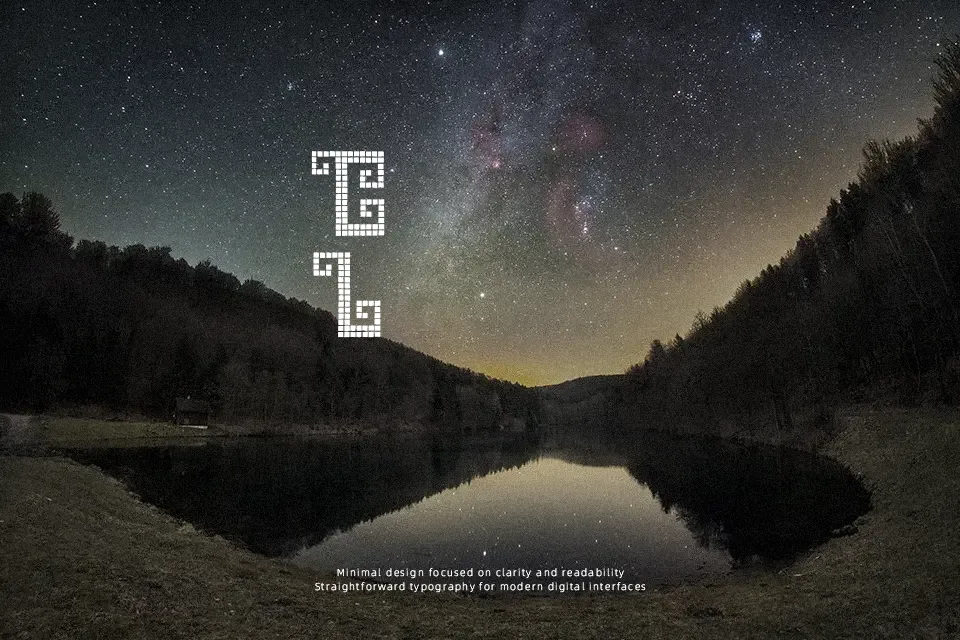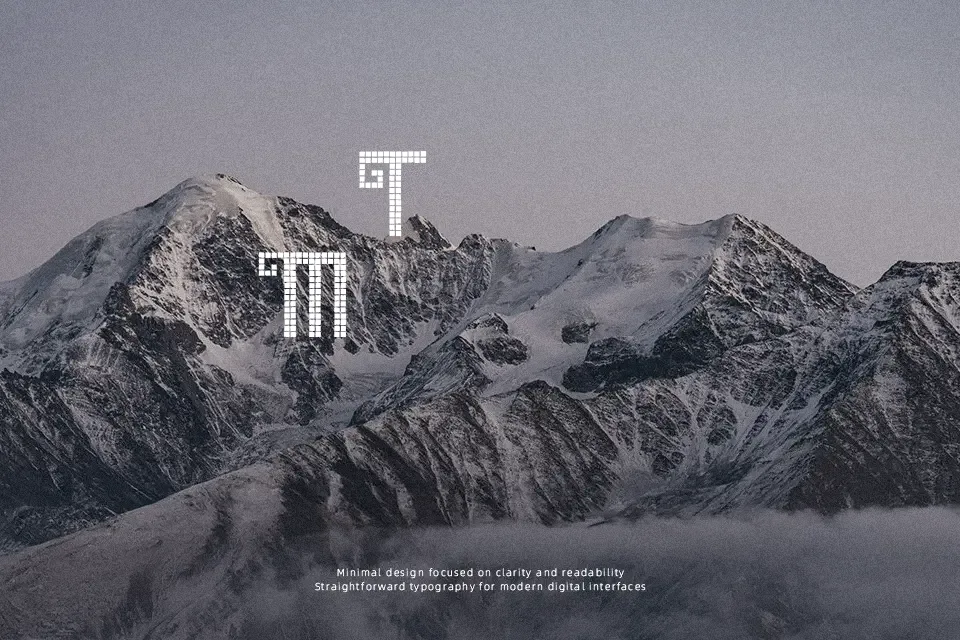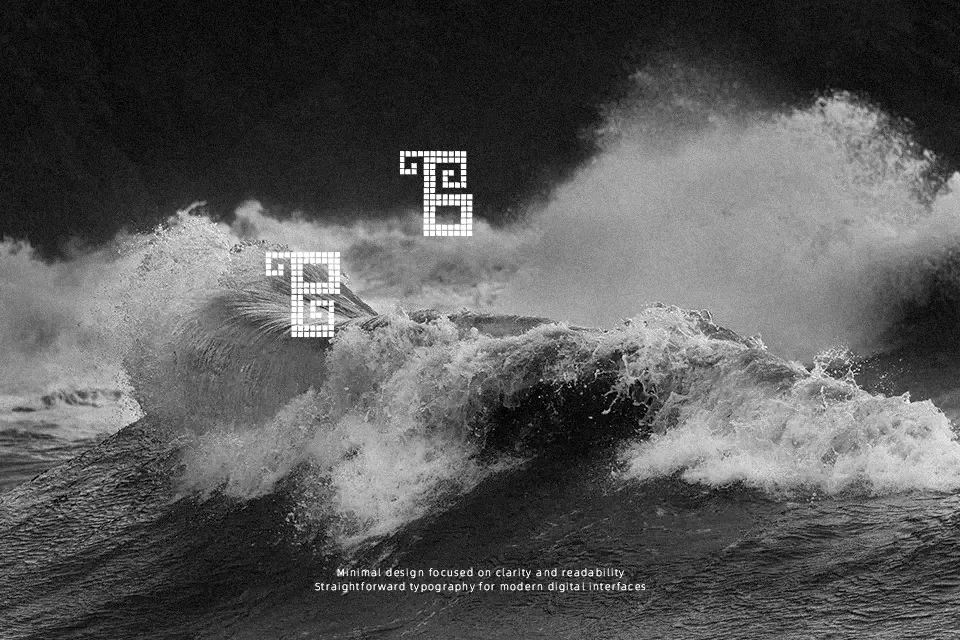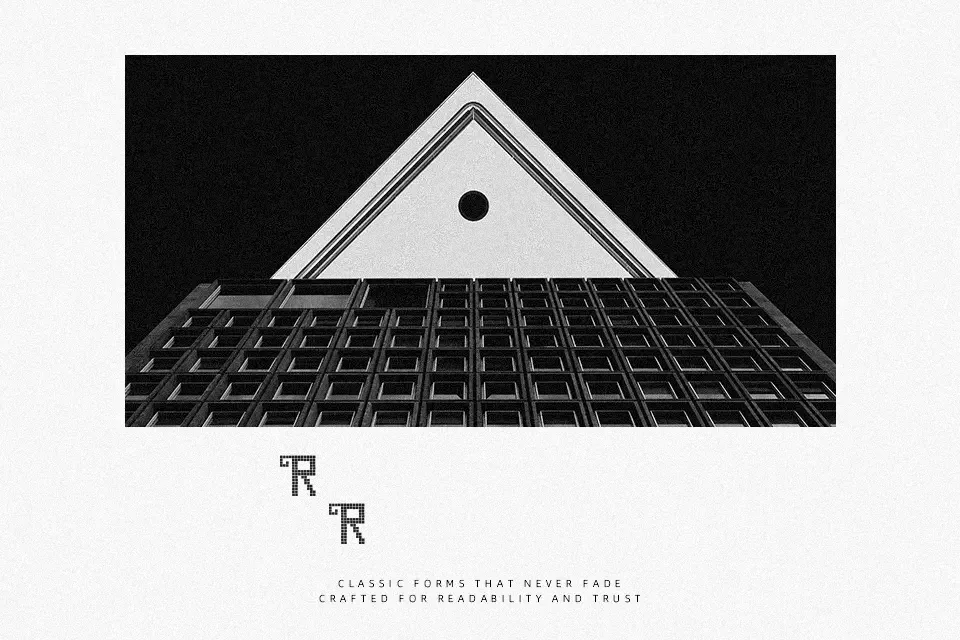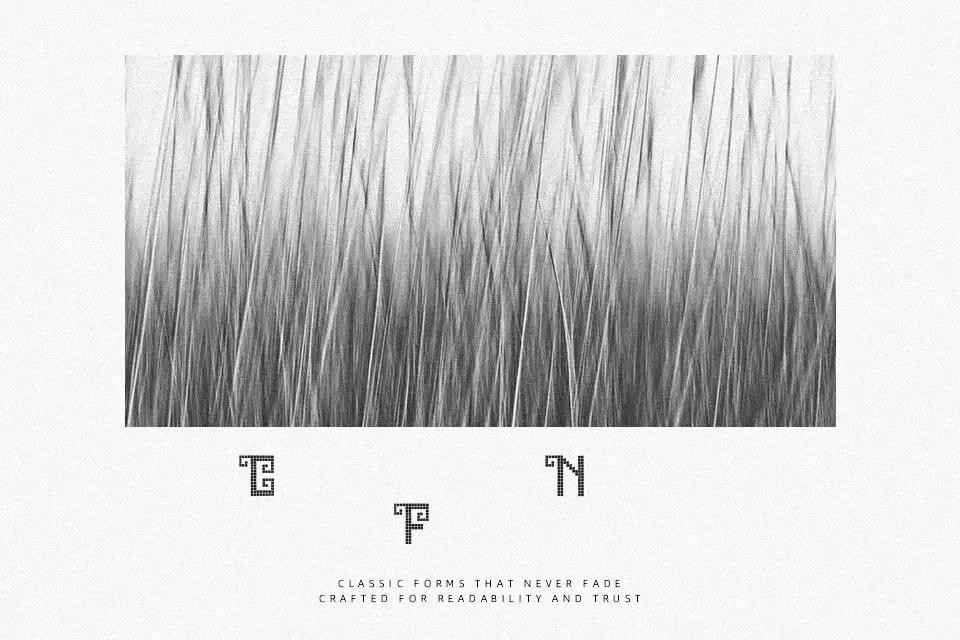
Quetzal Font
Structurally inspired by ancient mosaic tiles, Quetzal Font features rigid, block-like letterforms that create a distinctive geometric rhythm. The heavy strokes and uniform width mimic the appearance of carefully arranged stones, giving the typeface a bold, grid-based presence. The balanced spacing helps maintain clarity in larger headlines, allowing the intricate forms to stand out in thematic logos or event posters. However, the dense construction and highly decorative nature reduce continuous reading comfort, meaning the typeface is less suitable for long paragraphs. While the structural details ensure high visual impact at display sizes, small captions may lose clarity as the intricate patterns begin to visually merge.
thematic festival posters
cultural exhibition branding
retro video game titles
historical museum displays
Perfect for branding, gaming, and headline, with a ancient and decorative style.